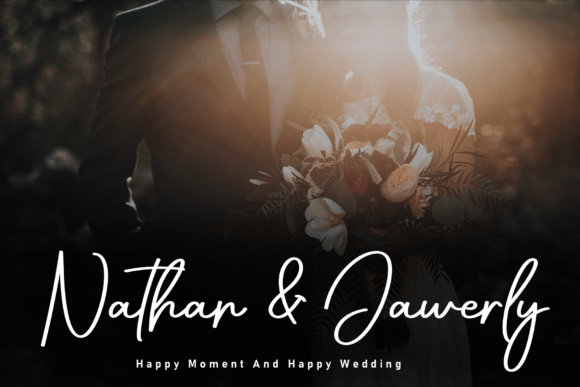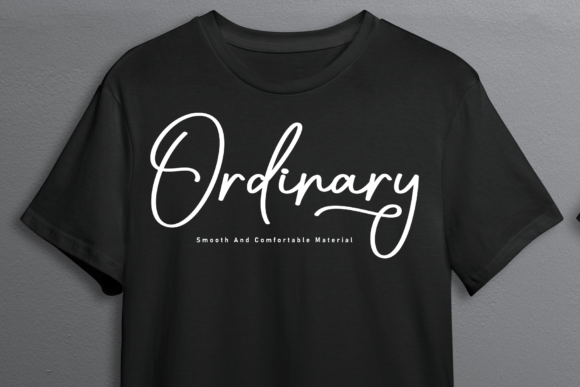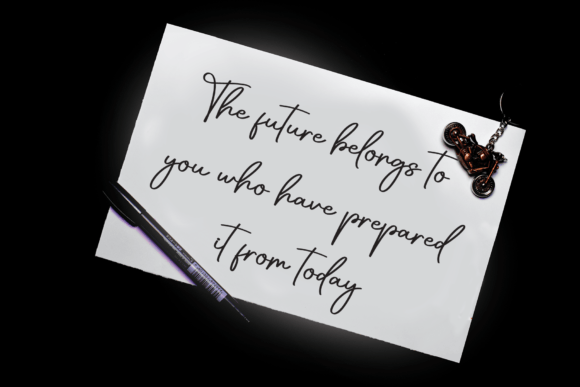
Introduction to Everynight Font
Everynight is a neat and beautiful handwritten font described by an elegant touch, perfect for your favorite projects.
Fall in love with its incredibly distinct and timeless style, and use it to create spectacular designs .
Key Features of Everynight Font
Why Choose Everynight Font?
Everynight Font offers exceptional quality and versatility, making it a valuable addition to your design toolkit. Whether you’re creating for personal projects or commercial use, Everynight Font delivers professional results.